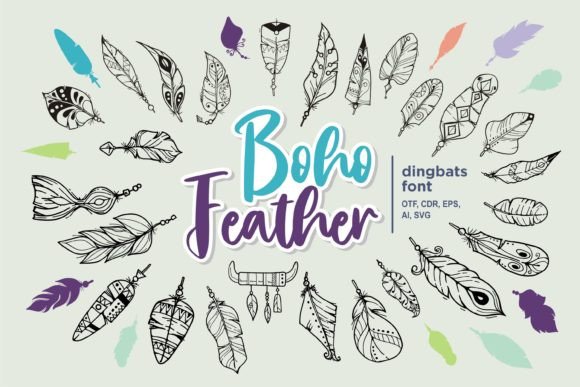
Introducing Boho Feather Font, a captivating and versatile dingbats font designed in a bohemian style by the talented artist, onoborgol. If you are on the lookout for the best font for a white background, look no further!
Boho Feather Font is not your ordinary font; it is a work of art that will breathe life into your designs. With its intricate and decorative elements, this font adds a touch of whimsy and creativity to any project. Whether you are designing a logo, creating invitations, or crafting a social media post, Boho Feather Font will effortlessly enhance your work and capture the attention of your audience.
What sets Boho Feather Font apart is its ability to evoke emotions and tell stories through its unique symbols. Each character in this font is carefully crafted to portray a sense of freedom, adventure, and bohemian spirit. By simply incorporating this font into your designs, you can instantly transport your audience to a world of wanderlust and inspire them to embrace their inner artist.
Imagine the possibilities when you have Boho Feather Font at your fingertips. Its versatility knows no bounds! Whether you are aiming for a rustic, vintage, or contemporary look, this font seamlessly adapts to any style. Its timeless appeal makes it suitable for various projects, from fashion branding to wedding stationery.
Not only does Boho Feather Font offer aesthetic appeal, but it also provides a user-friendly experience. With its easy-to-read characters and clean lines, this font ensures that your message is delivered with clarity and impact. Say goodbye to dull and uninspiring typography - Boho Feather Font will make your text pop and leave a lasting impression.
When it comes to marketing and selling your products or services, first impressions matter. With Boho Feather Font, you can create stunning visuals that captivate your audience and entice them to take action. Whether you want to stand out on social media or create eye-catching packaging, this font will be your secret weapon in grabbing attention and making a memorable statement.
In conclusion, Boho Feather Font is not just a font; it is a gateway to creativity and self-expression. Its bohemian charm, versatility, and ability to evoke emotions make it the perfect choice for designers, entrepreneurs, and anyone seeking to make a lasting impression. Add this unique dingbats font to your collection and unlock a world of endless possibilities.